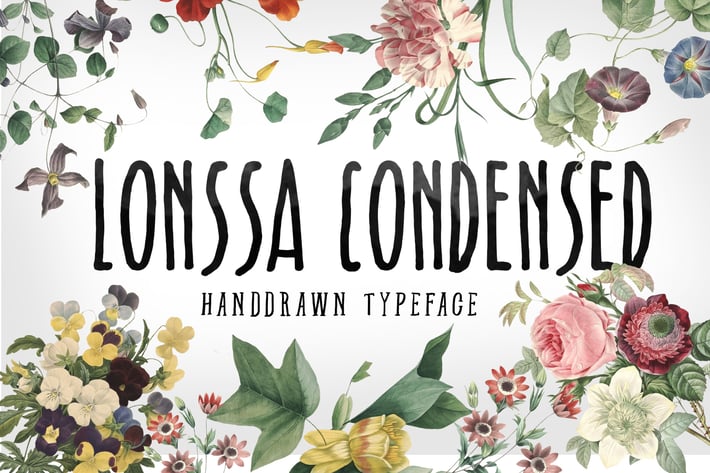
Lonssa Condensed Typeface
Introducing Lonssa Condensed Typeface. made with love design harmony in every single character.
Those all will make you work easily to create : Badges, lable, greetingcard , book cover, Posters, Logos, Print, Quotes, Headers, Clothing, etc.
+ Uppercase + Lowercase
+ Numerals & Punctuations